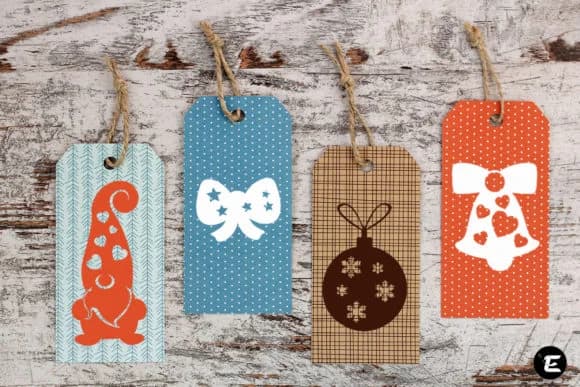
Magical by grafikestelle is a decorative dingbat collection filled with whimsical animal characters and festive icons you can actually use. Each character set includes playful critters like unicorns, rabbits, and cats alongside hearts, stars, and other decorative elements, giving you an instant library of charming pieces to layer into designs. The rounded, playful forms work especially well when you want to add visual warmth and personality without relying on text. Since it's built as a dingbat font, every character in your keyboard becomes a ready-made illustration element.
This font really shines for kids' book illustrations, holiday newsletter headers, and t-shirt print designs where genuine character and charm matter more than formal sophistication. You can also put it to work on Christmas card suites, festive merchandise graphics, and DIY craft projects aimed at younger audiences. The decorative nature of each character makes it equally valuable for backgrounds and layered compositions in digital work. Designers reach for Magical when they need something that feels handmade and genuinely joyful, perfect for building visual interest through layered icons rather than relying on traditional typography alone.